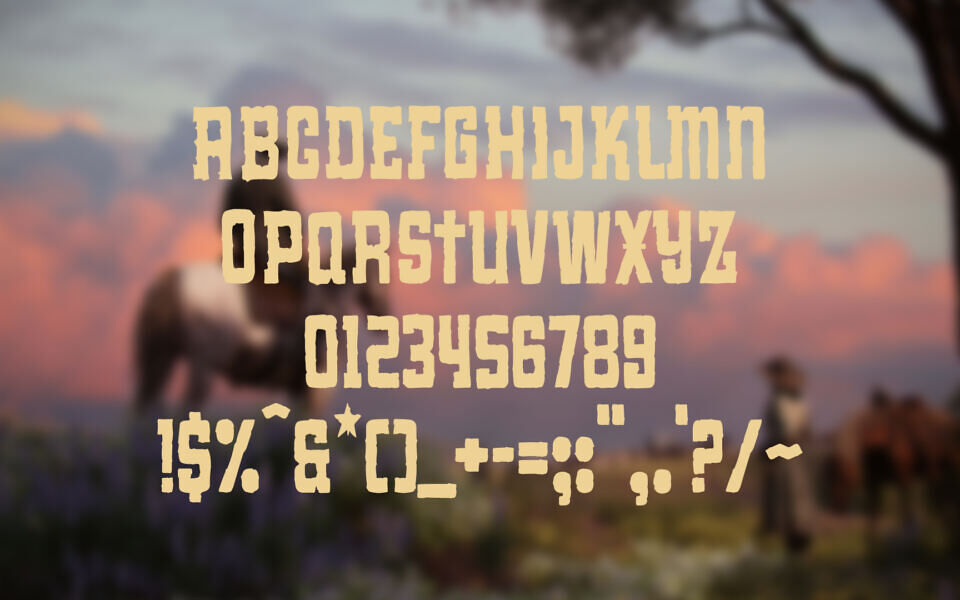
Fake Red Nation is a bold, distressed display font that captures a rugged, rebellious spirit. Featuring rough edges and a worn texture, it evokes a vintage, grunge aesthetic perfect for posters, logos, and edgy designs.
Its strong, all-caps letterforms command attention and add a raw, handcrafted feel to any project. Ideal for urban themes, band artwork, or anything needing a gritty attitude, Fake Red Nation stands out with character and power.